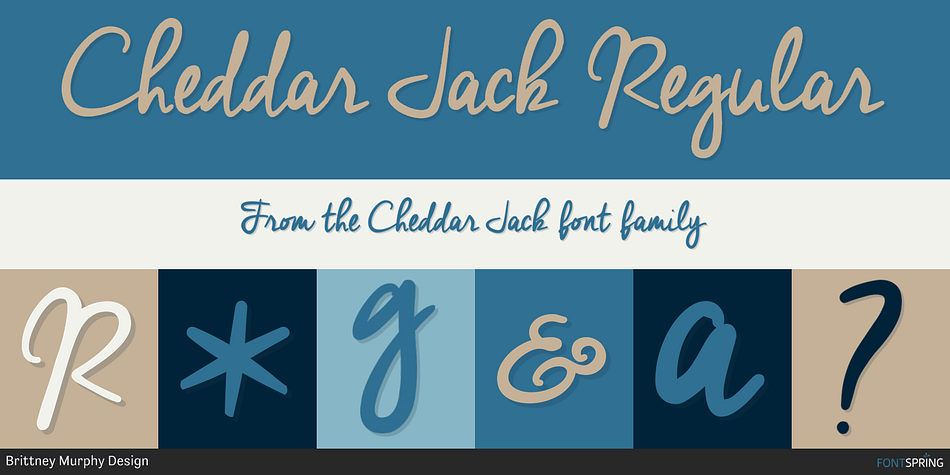
Cheddar Jack Regular
Cheddar Jack is a hand drawn and script font published by Brittney Murphy Design.
A bold, script-y font great for headlines and logos!
The Cheddar Jack font is a bold script-y font from Brittney Murphy Design, created in 2014. The Cheddar Jack Font includes over 325 characters and has multi-language support more several Latin-based languages.